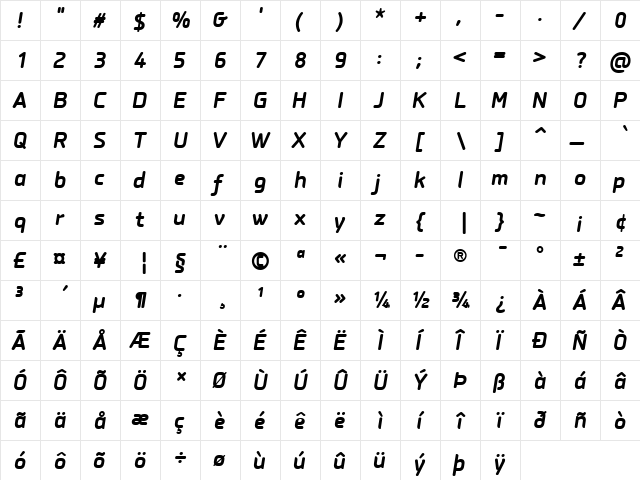
PF Isotext Pro Bold Italic
Design Context for PF Isotext Pro Typeface
PF Isotext Pro takes a measured approach to typography — its balanced proportions and neutral character make it a reliable workhorse for both digital and print work. The slanted form adds forward momentum and visual energy. Its bold stroke weight gives it real presence on the page.